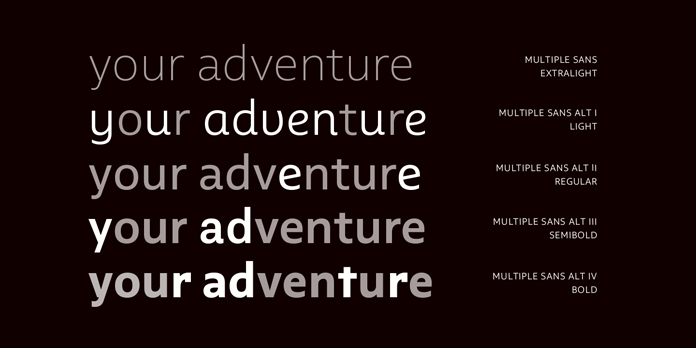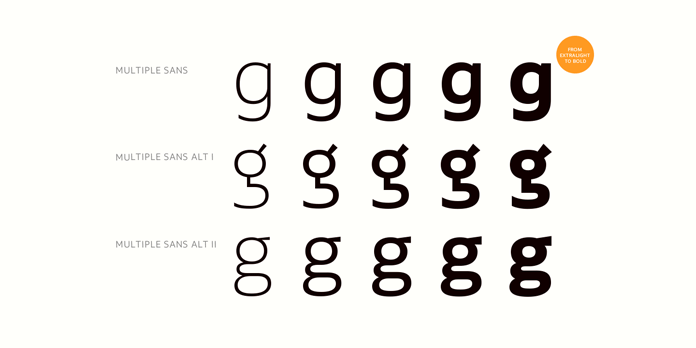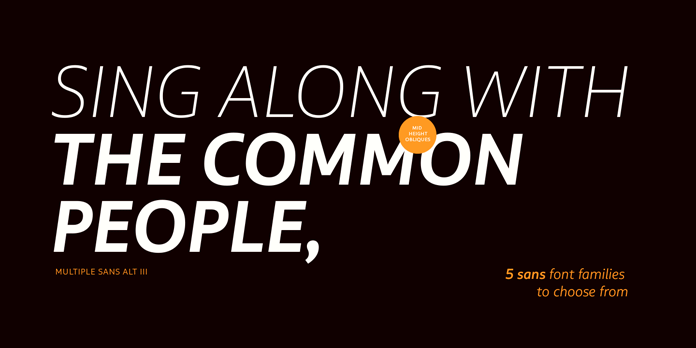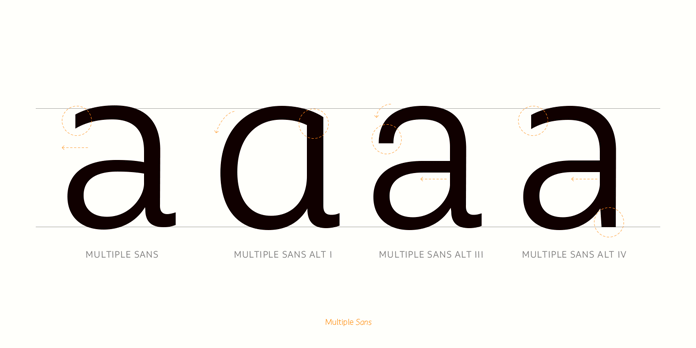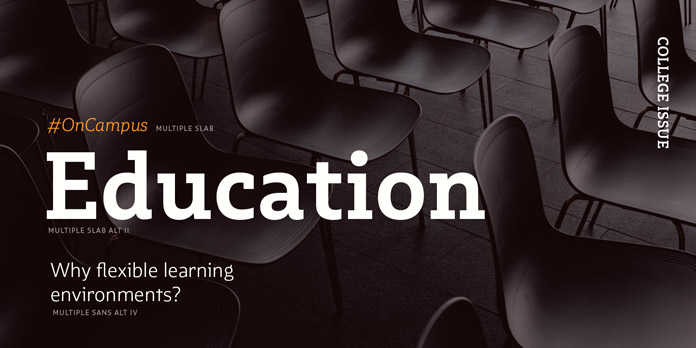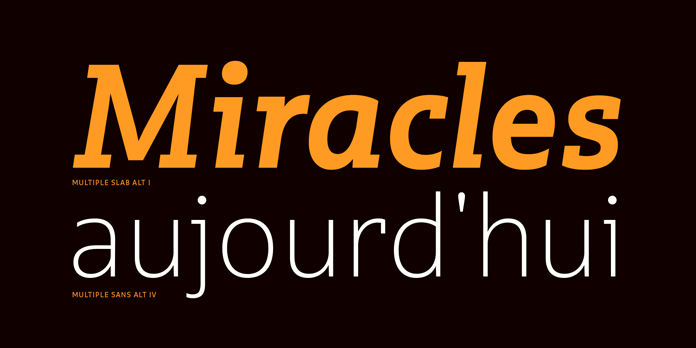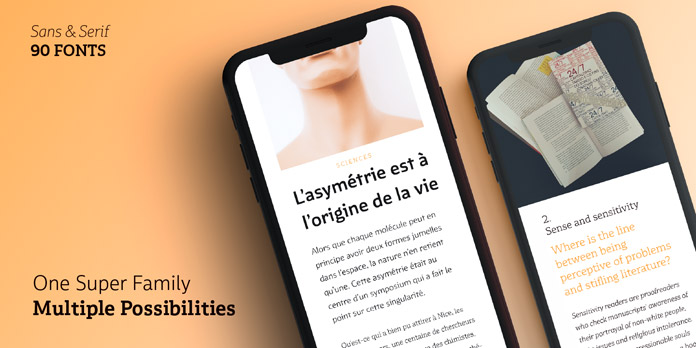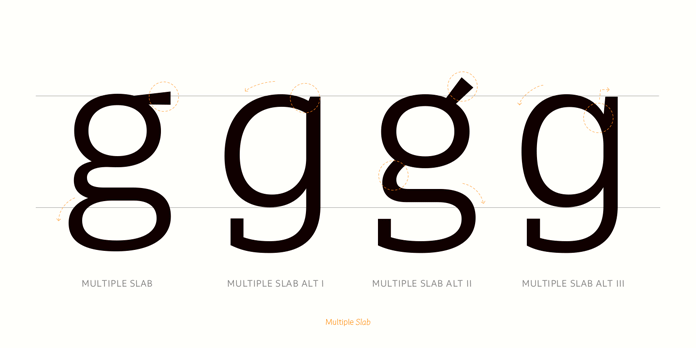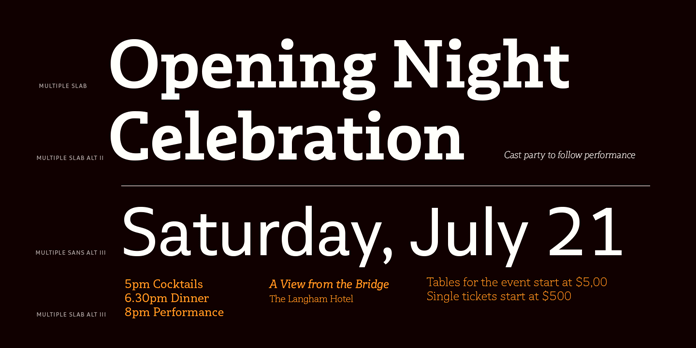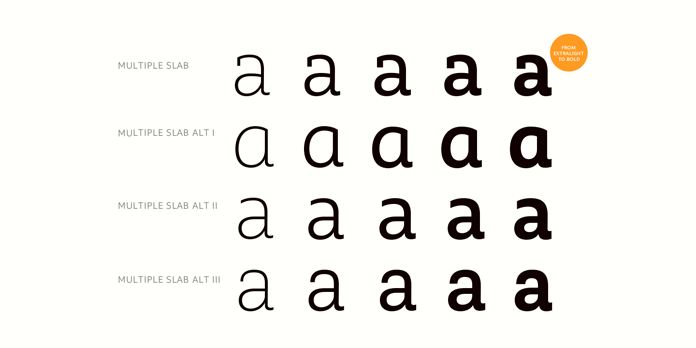
Multiple, a 90 fonts superfamily from Latinotype.
Multiple is a new superfamily consisting of 90 fonts divided into two subfamilies: a sans and a slab as well as 5 weights ranging from extra light to bold plus matching Italics for each weight. The idea behind this family was to develop a useful font, which is suitable for all typographic needs such as editorial design, packaging, branding, screen design, just to name a few. The friendly folks of Latinotype are currently pre-releasing it with an amazing offer, pay what you want (starting from $5) for all 90 fonts. You can purchase and download this amazing superfamily on their website, just have a look here.